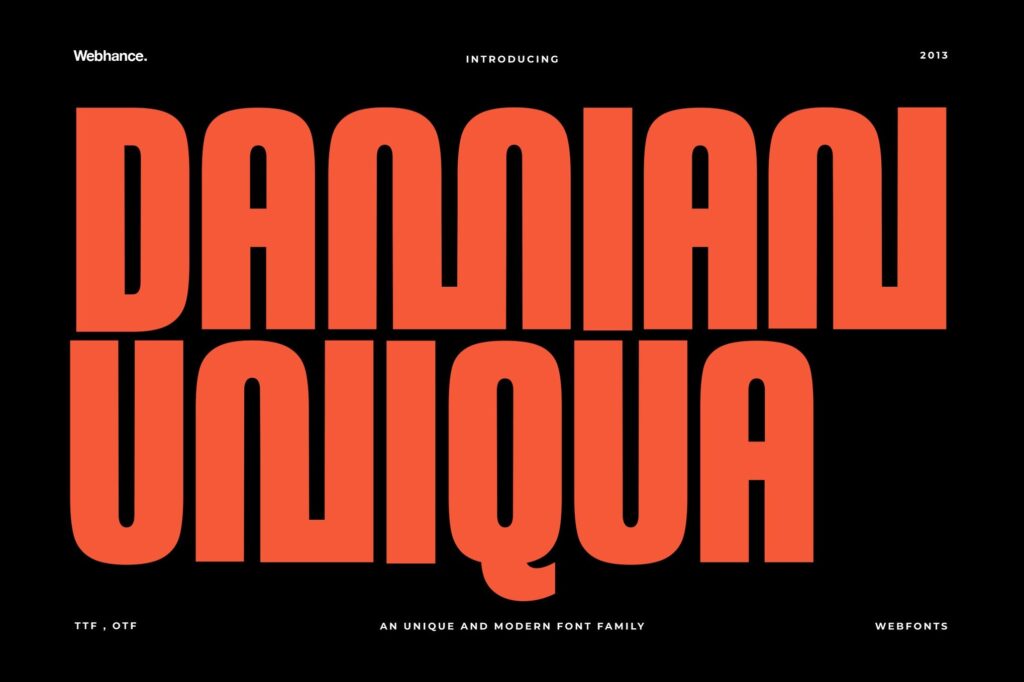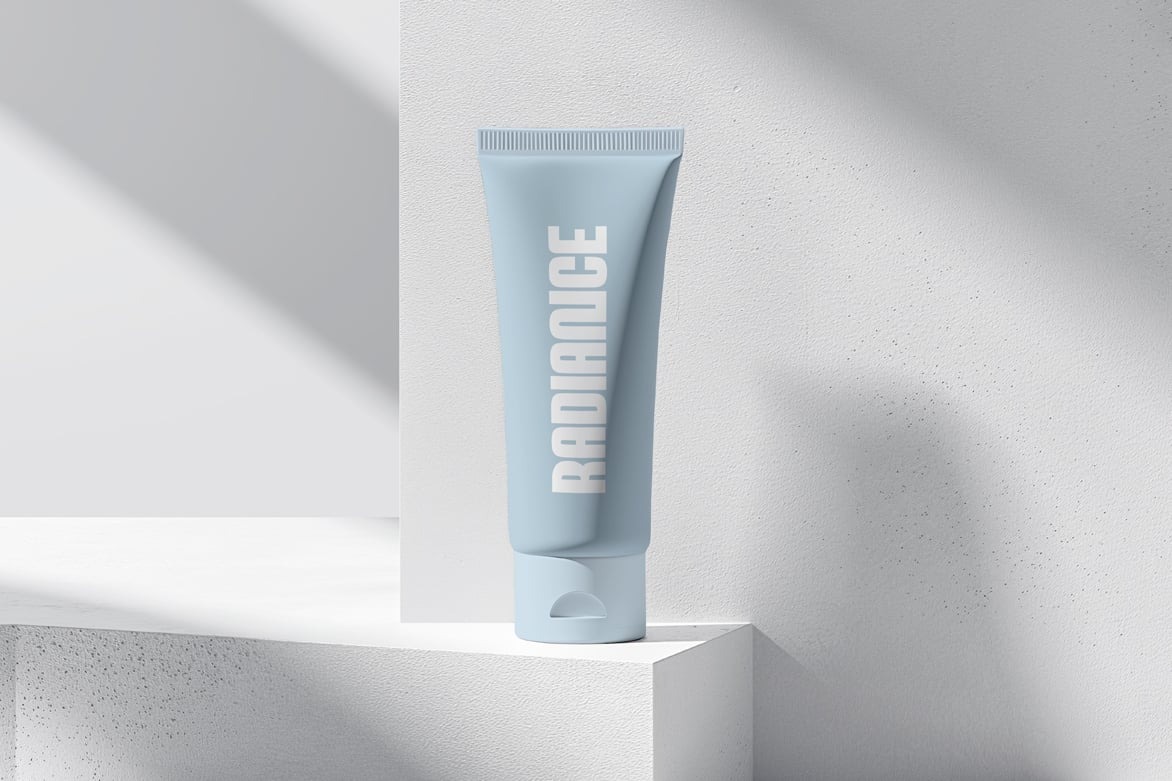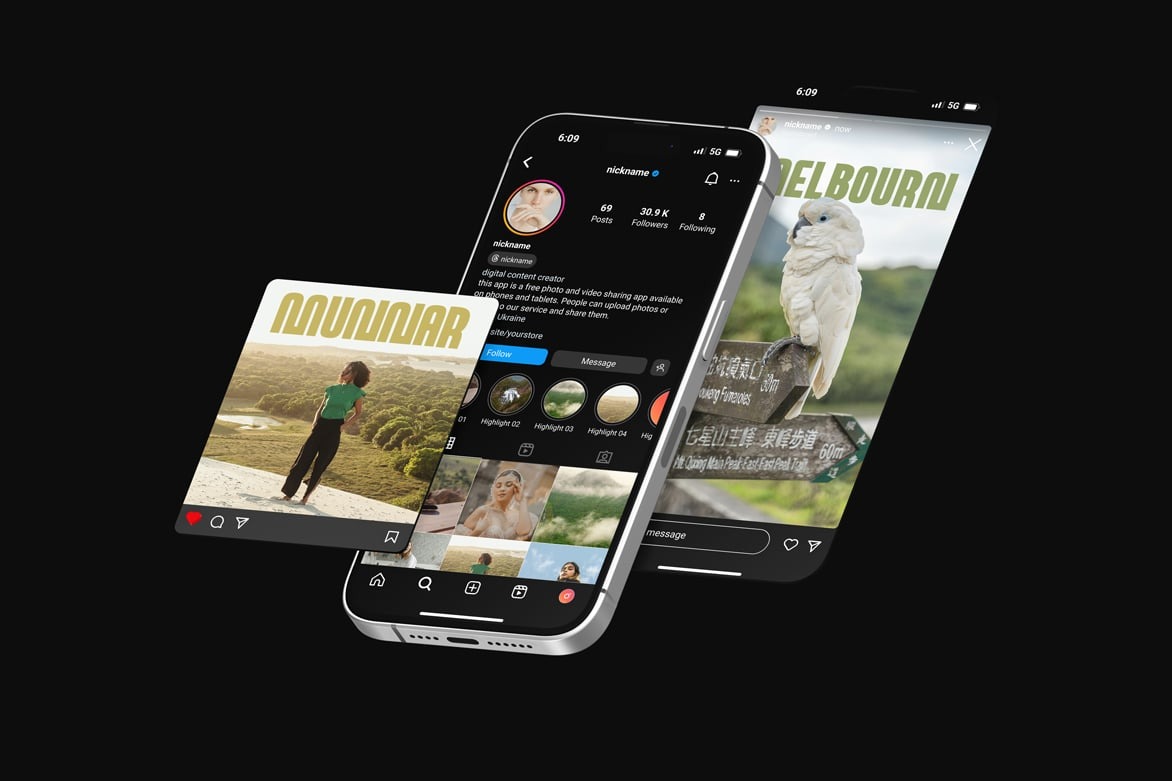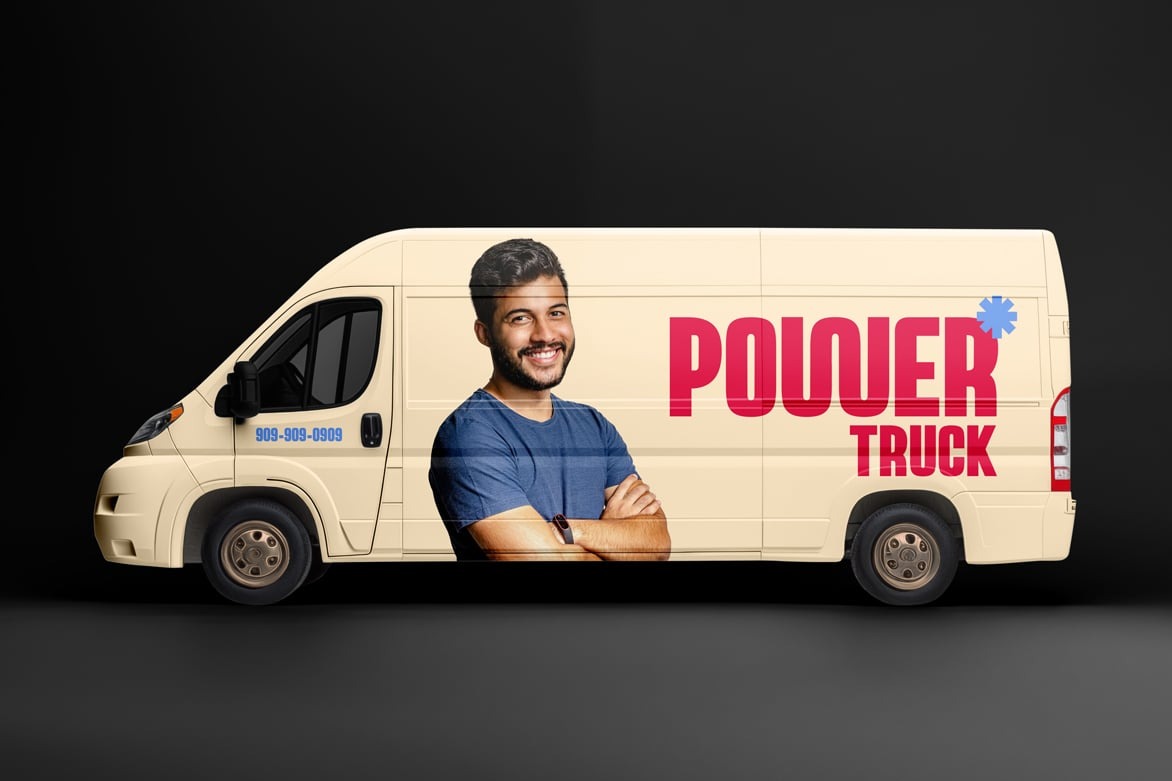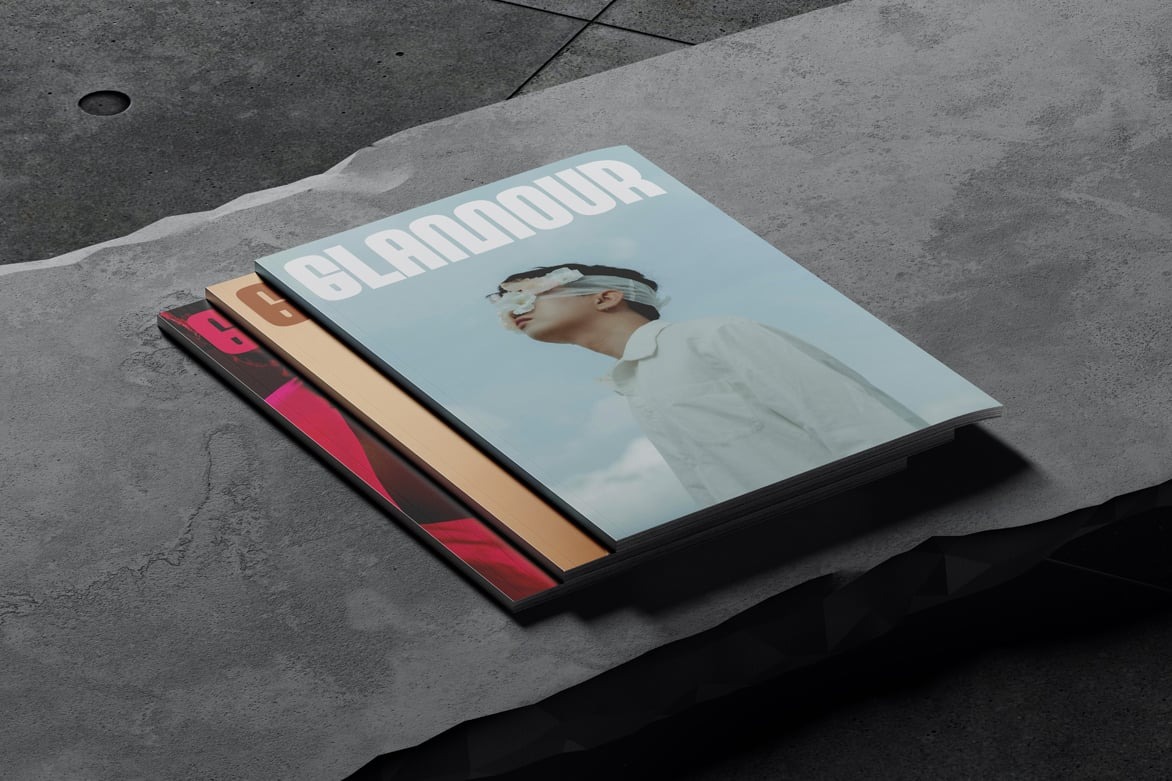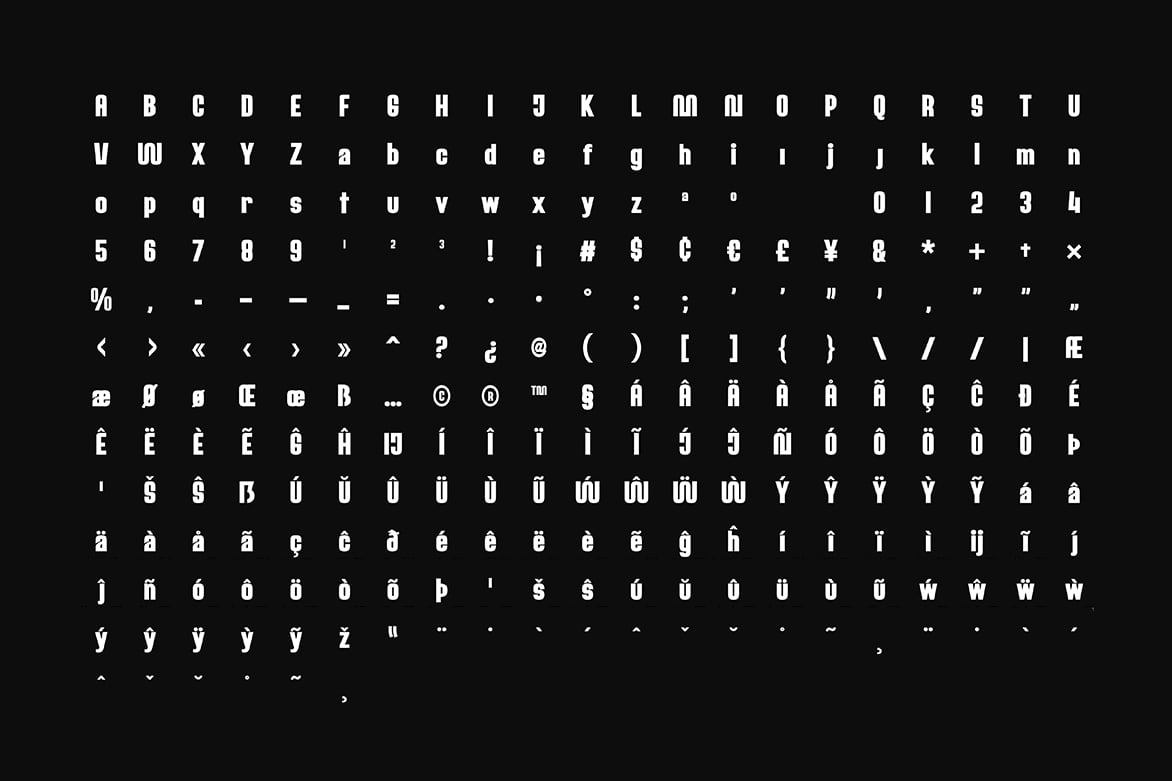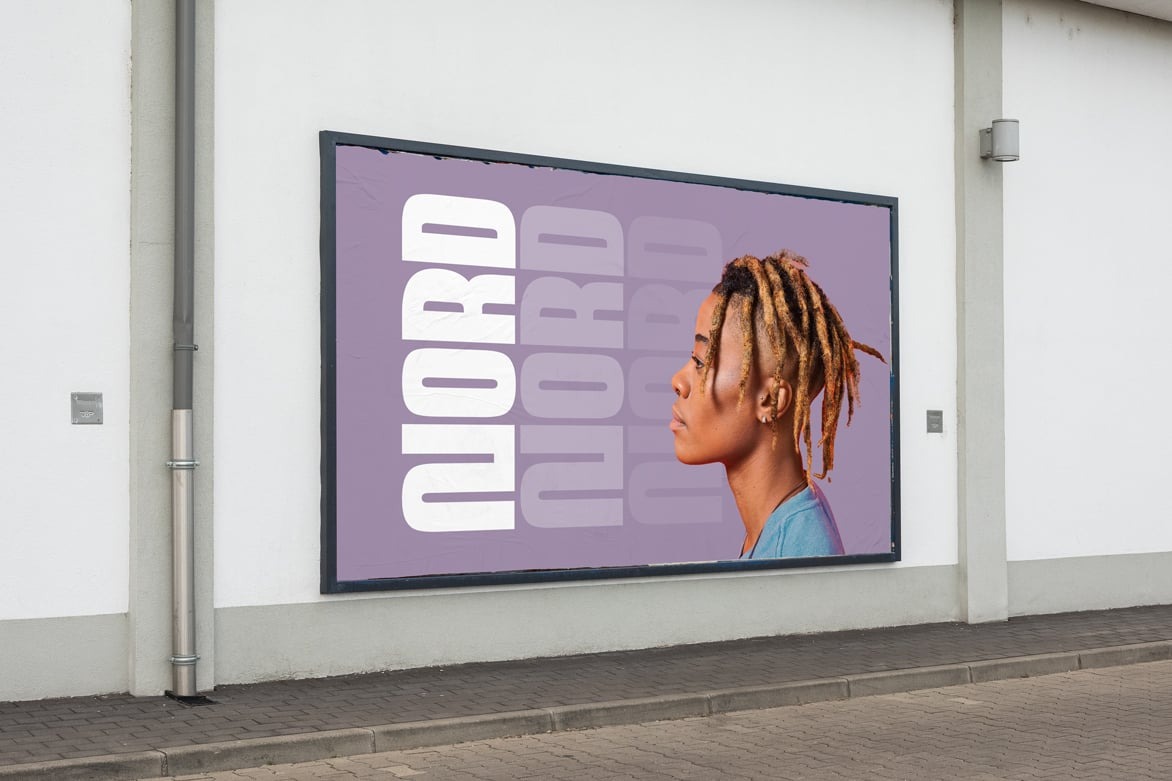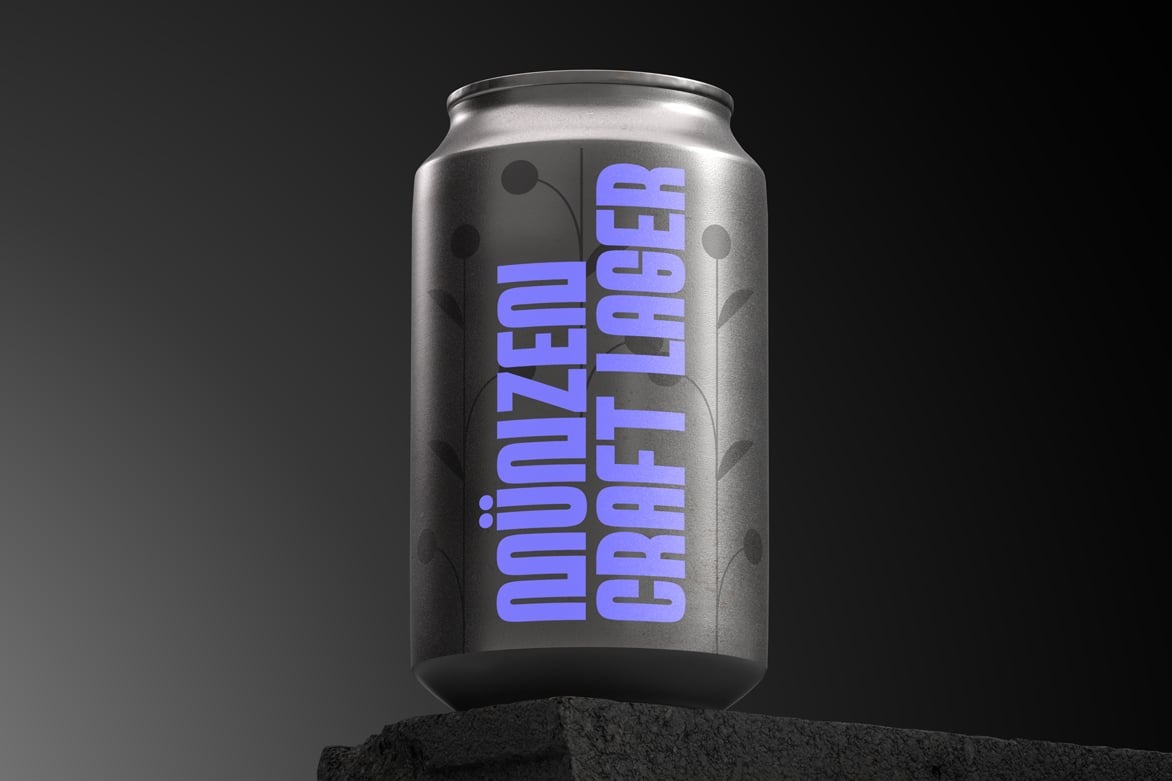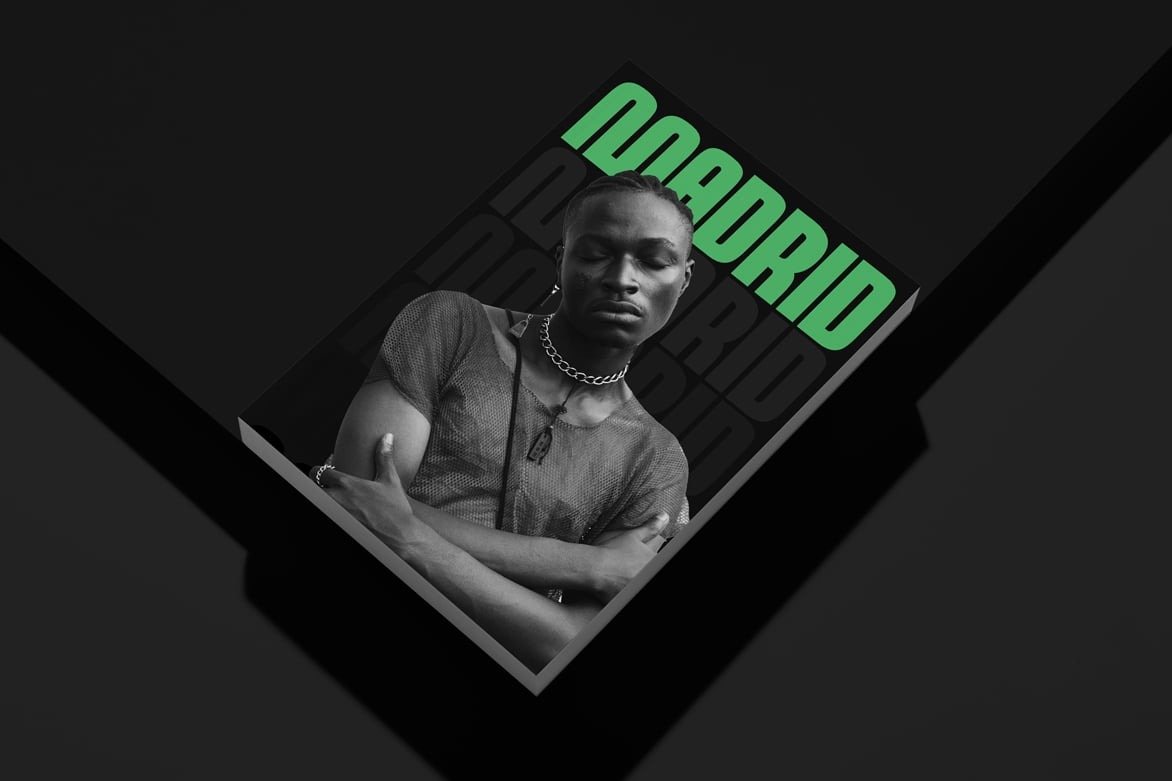
Damian is a new font family from Webhance Studio, and Uniqua is the first font from this family. This contemporary sans-serif typeface offers a sleek, minimalist design for diverse projects. With clean lines and balanced proportions, Uniqua delivers a modern aesthetic while ensuring creativity across different mediums. Its clean, futuristic style suits Instagram and YouTube posters, thumbnails, TikTok banners, and social media posts. Use Damian Uniqua to create eye-catching posters and creative projects with a futuristic, trendy look.
Damian Uniqua has German, French, Spanish, Italian, Dutch, Portuguese, English, Catalan, Swiss German, and Flemish language support. Moreover, this font extends its versatility to South American countries, providing full compatibility with Spanish, Portuguese, and English. Additionally, it is fully compatible with Esperanto, making it an ideal choice for international design needs.